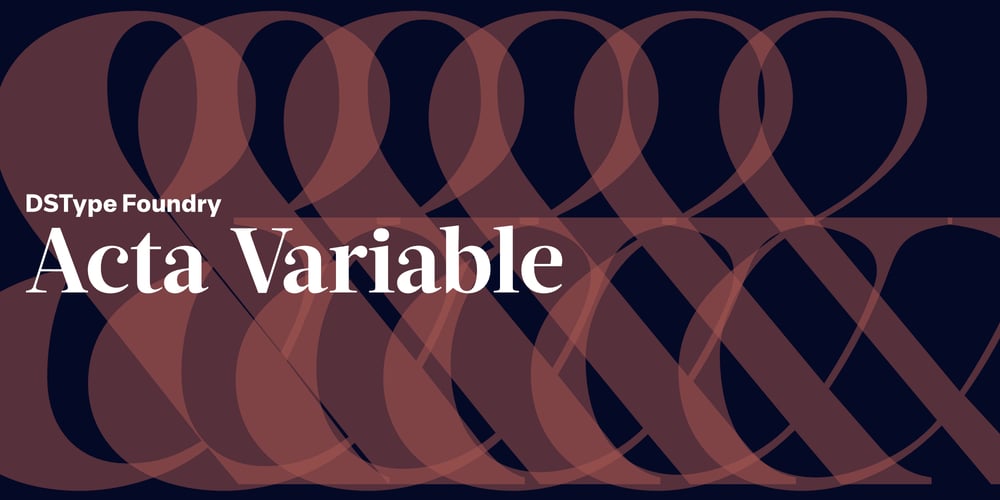
Acta Variable Font Family was designed by Dino dos Santos and published by Monotype. Acta Variable contains 2 styles and family package options. Acta Variable is a clean and fresh type system that remains conservative enough for newspaper setting. The complete Acta Variable allows the possibility to modify the Weight and Optical size axis.